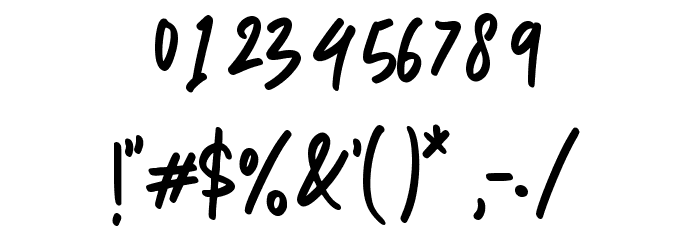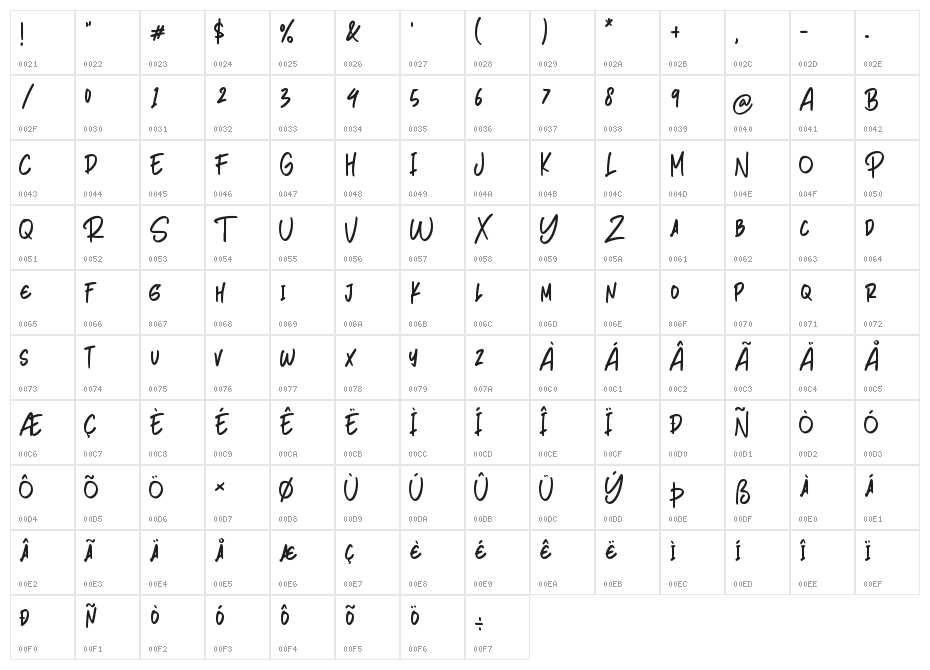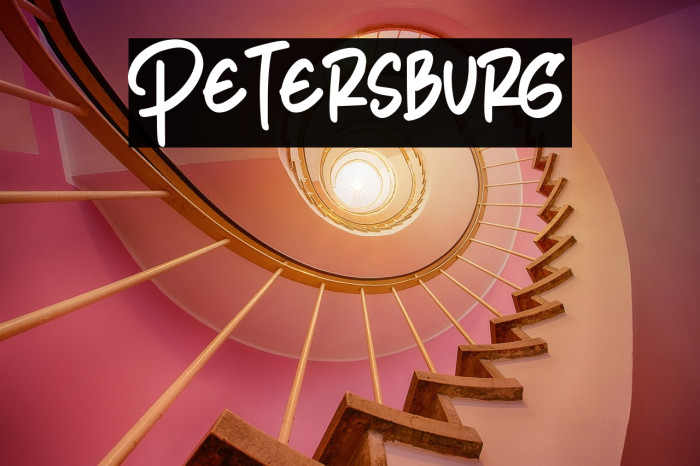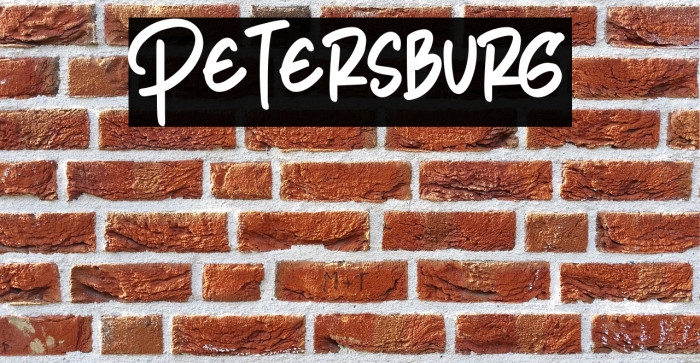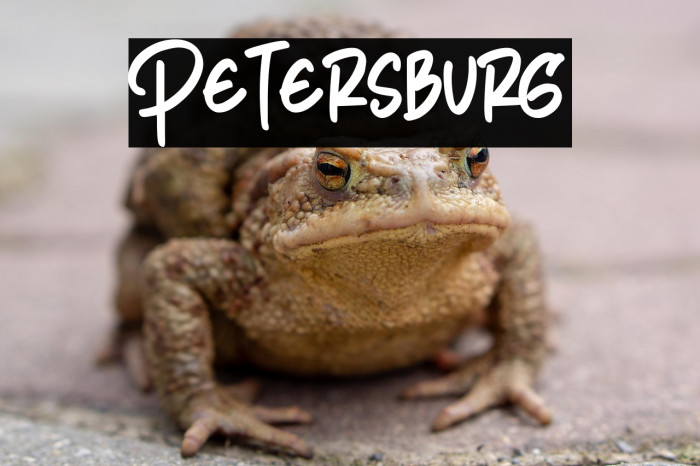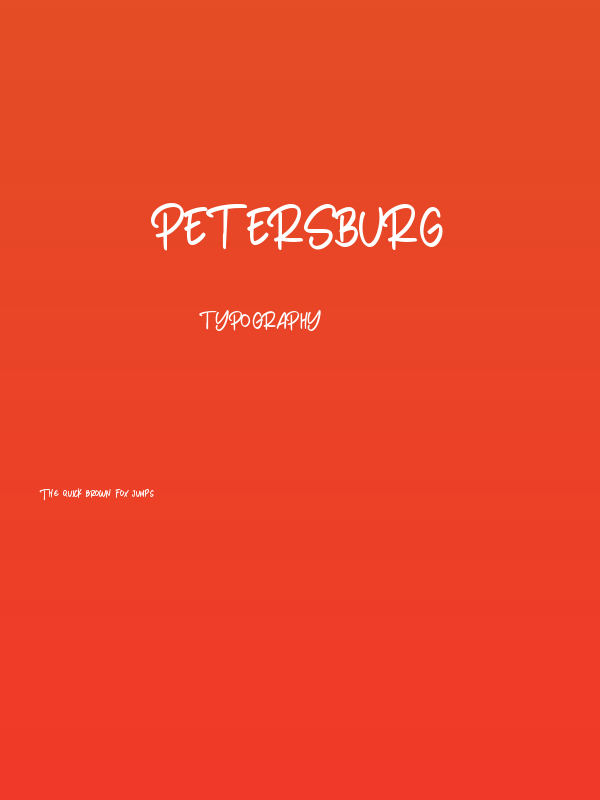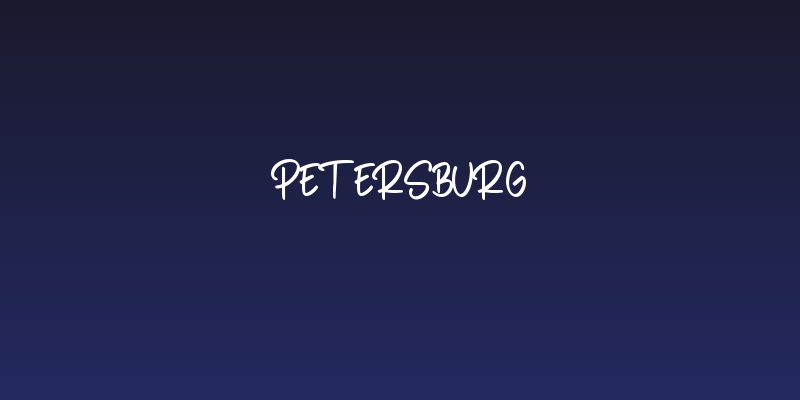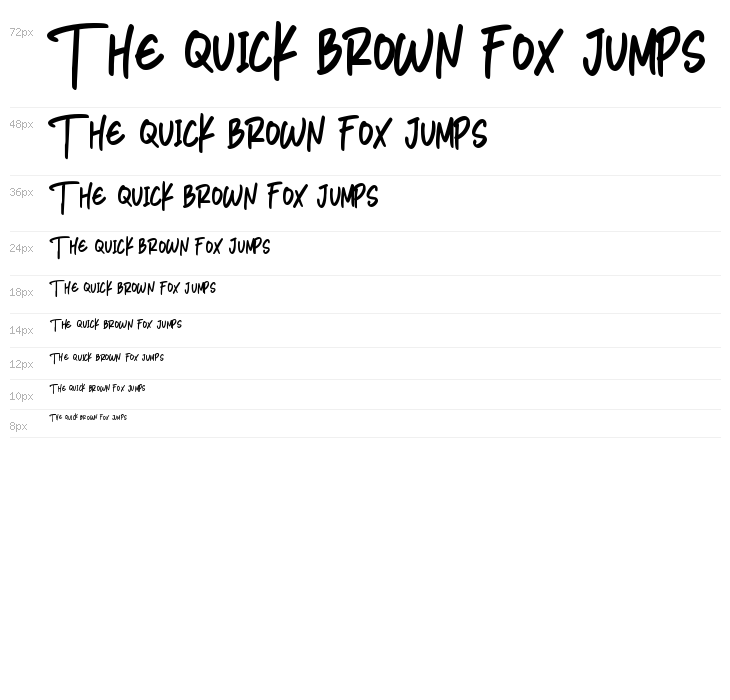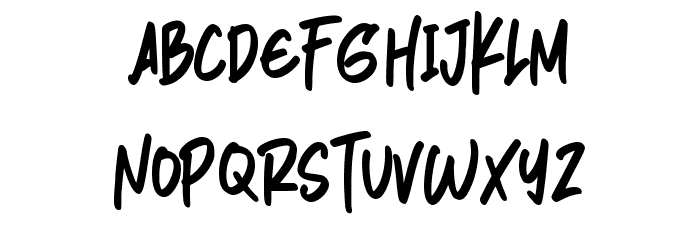
Petersburg Font
Petersburg Description
This font features a playful and energetic handwritten style, characterized by its fluid and slightly irregular strokes that mimic natural handwriting. The letters are bold and expressive, with a casual and informal appearance. The uppercase and lowercase letters maintain a consistent style, with a slight slant that adds to the dynamic feel. The numbers and special characters are crafted with the same lively touch, making them blend seamlessly with the alphabet. This font exudes a sense of creativity and spontaneity, perfect for projects that require a personal and approachable touch.
| Proposed Projects | Ideal for greeting cards, invitations, personal branding, and creative projects that require a friendly and informal tone. |